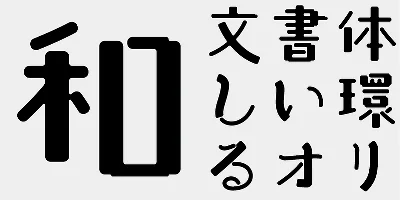
AB Kotodama U Font
AB Kotodama U Font is a uniquely expressive Japanese display typeface that blends mystical charm with modern design clarity. The name “Kotodama” (言霊) means “the spirit of words,” and this typeface truly lives up to that meaning—infusing each character with a sense of depth, elegance, and energy. The “U” likely refers to a particular style variation within the family, offering a more stylized or specific design tone.
AB Kotodama U Font features bold, flowing strokes, subtle calligraphic elements, and a slightly ethereal rhythm—perfect for creative projects that aim to feel poetic, artistic, or spiritually inspired. Whether used for book titles, cultural event posters, branding for artisanal products, or traditional media with a modern edge, this font brings a voice of quiet strength and individuality.
It supports Hiragana, Katakana, Kanji, and basic Latin characters, making it a great fit for bilingual compositions and Japanese-language storytelling.
Evocative, artistic, and full of soul—AB Kotodama U Font gives every word a deeper resonance, making it a perfect choice for meaningful, beautifully crafted Japanese typography.